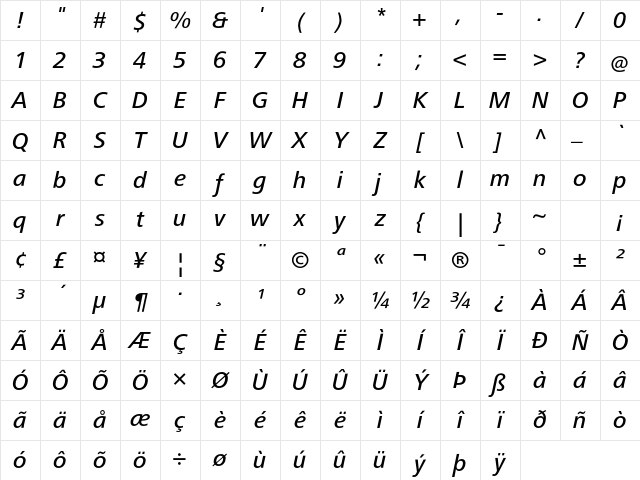
Complete FrutigerNextLT Medium Italic glyph index. Displaying only characters natively supported by FrutigerNextLT Medium Italic font.
FrutigerNextLT is a composed and adaptable typeface that performs quietly and consistently across a wide range of design contexts. The slanted form adds forward momentum and visual energy.